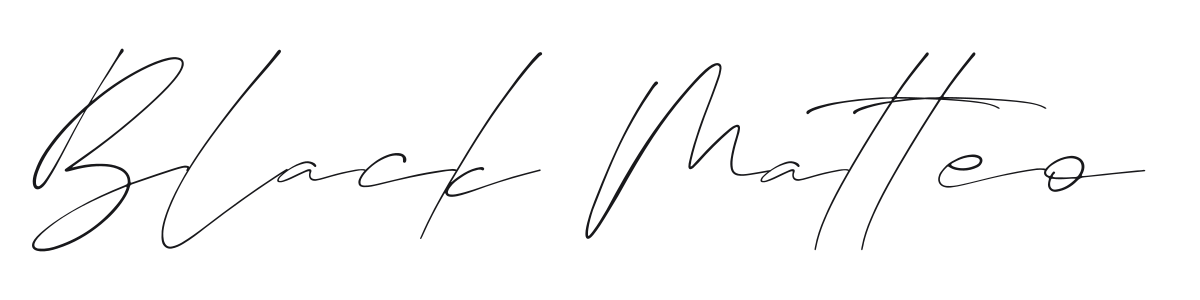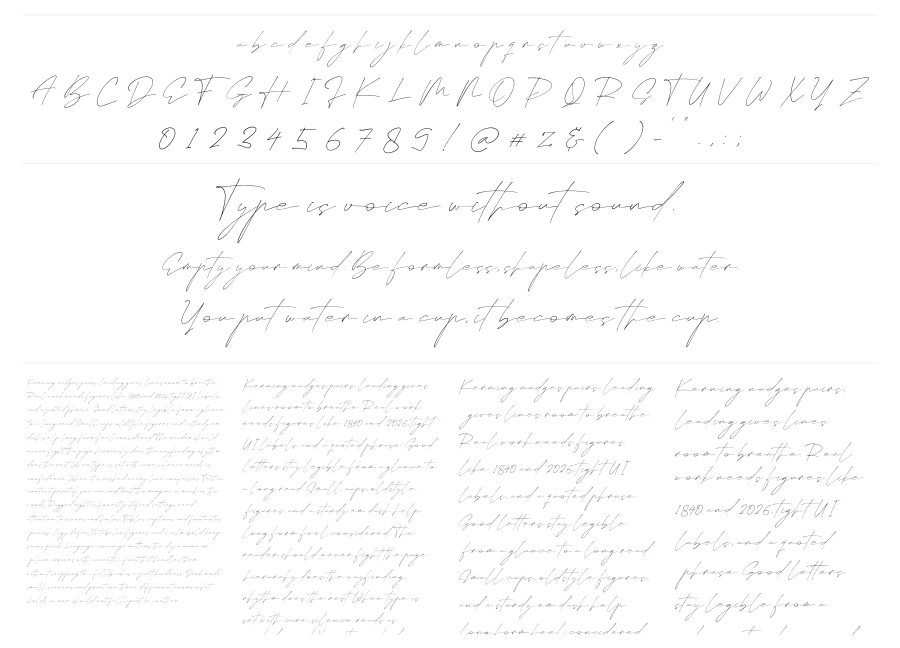
Black Matteo
Black Matteo is an ultra-thin casual script with the loose, confident feel of a handwritten signature. Long sweeping strokes connect letters across an organic baseline, giving it a natural, spontaneous energy. It works best large, where the fine strokes and looping details can breathe.